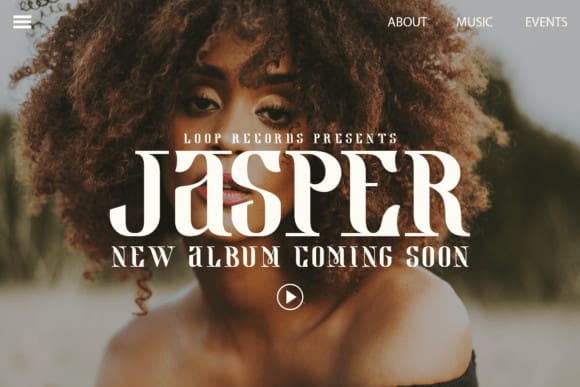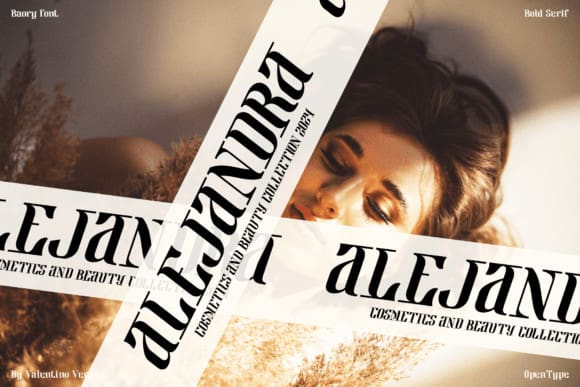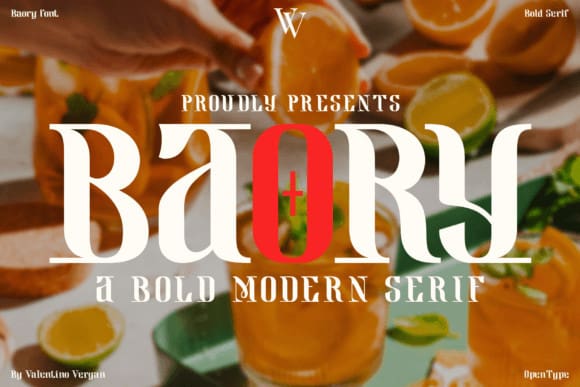
Baory Font
Baory Font is a bold modern gothic style serif, which is perfect for headlines and logos. The idea behind Baory was to create a bold serif with gothic elements, this combination creates a unique font that is eye-catching and creative. Baory is an ideal font for graphic designers and advertising agencies who are looking to create unique and interesting designs for their clients. Baory comes with great multilingual support.